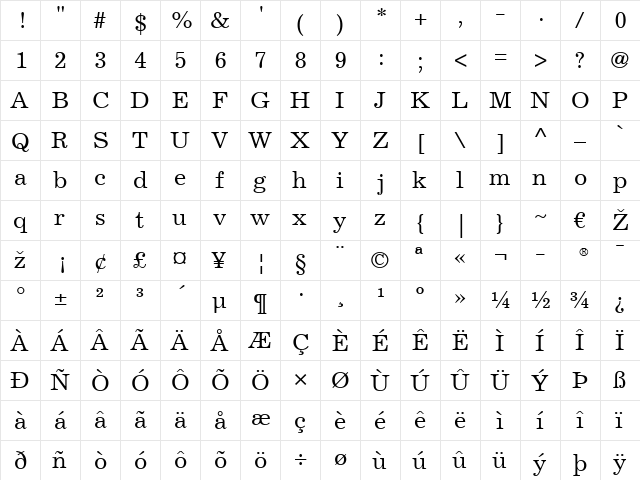
Excelsior LT Regular
Design Context for Excelsior LT Typeface
Excelsior LT takes a measured approach to typography — its balanced proportions and neutral character make it a reliable workhorse for both digital and print work. Its slender proportions lend an understated elegance to any composition.
Pro Tip: Use Excelsior LT in both headline and body roles to test its range before committing to a single application.